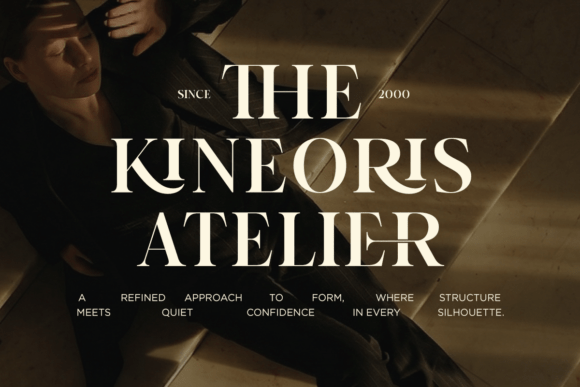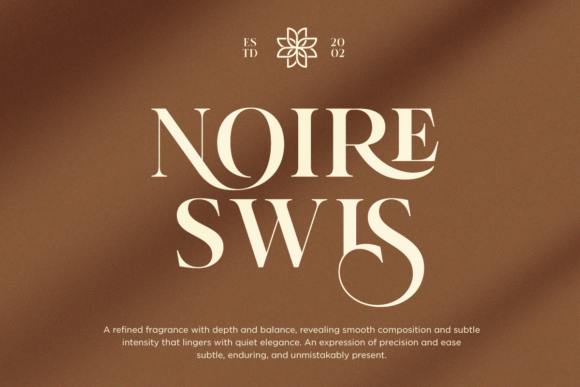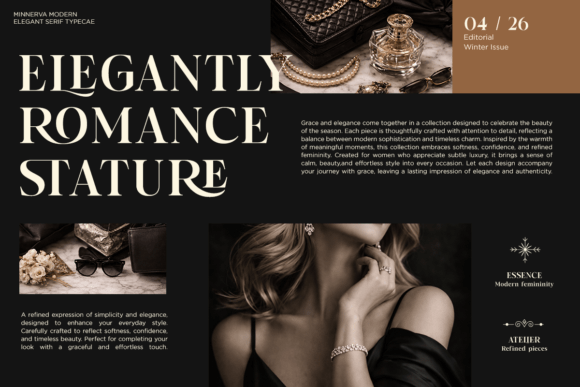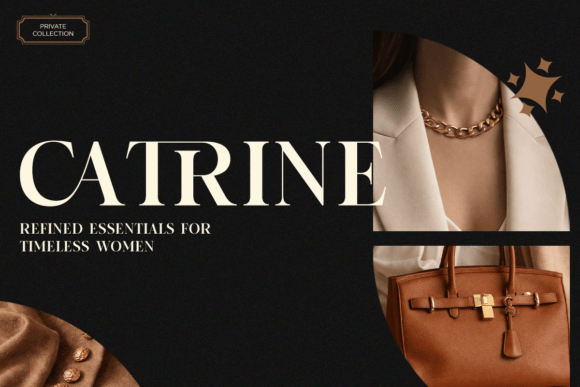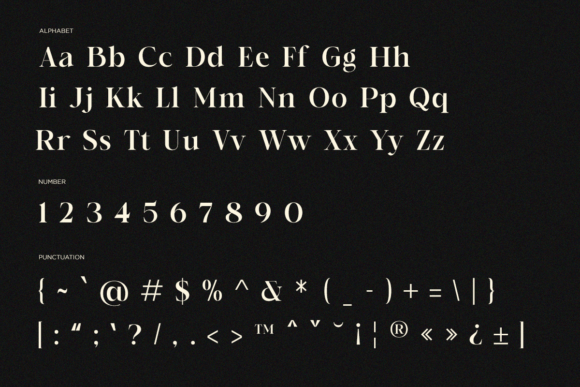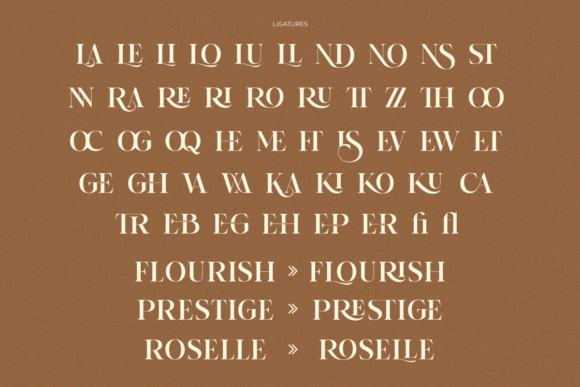
Introduction to Minnerva Font
Imagine you’re working on a creative project, and you need the perfect font to elevate your design. You want something that exudes sophistication and timeless beauty, something that will make your brand stand out from the crowd. That’s where the Minnerva Font comes in – a modern elegant serif typeface designed to deliver a luxurious aesthetic that feels both classic and contemporary.
With its refined letterforms, high contrast strokes, and graceful proportions, the Minnerva Font is a game-changer for designers. Whether you’re working on a free download or a high-end design project, this versatile font adapts effortlessly to meet your needs. Plus, with multilingual support and transparent background options, you can rest assured that your design will be accessible and effective across global markets.
As a valuable design resource, the Minnerva Font offers high-quality styling options that are perfect for luxury branding, magazines, logos, and premium packaging. Whether you’re a seasoned designer or just starting out, this elegant font is sure to bring a touch of sophistication to your creative project.
Key Features of Minnerva Font
- Unique, hand-drawn design perfect for creative projects and artistic expressions.
- Features a classic, elegant aesthetic, making it suitable for a wide range of design applications, from logos to brochures.
- Perfect for designers seeking a high-quality, unique font for their next creative project.
Honest Review: Minnerva Font
As a designer, I’ve had the pleasure of working with numerous fonts, but the Minnerva Font caught my eye recently. I downloaded it for free from a reputable source, and I must say, it’s been a fantastic addition to my design resources.
What works well about the Minnerva Font is its unique blend of elegance and sophistication. It’s perfect for creative projects that require a touch of class, such as wedding invitations, luxury brochures, or high-end branding materials. The font is also available with a transparent background, making it easy to work with in various design applications.
- High-quality design: The Minnerva Font is crisp, clear, and well-designed, making it a great choice for any design project.
One limitation of the Minnerva Font is its limited character set. While it’s suitable for most design needs, it may not be the best choice for projects requiring a large number of characters.
Overall, I’m impressed with the Minnerva Font. It’s a high-quality design resource that’s perfect for creative projects requiring a touch of elegance. If you’re looking for a reliable font for your next design project, I highly recommend giving it a try.
Minnerva Font
The Minnerva Font is commonly used in creative projects that require a high-quality, elegant font. Some common use cases include:
- Editorial and publishing projects